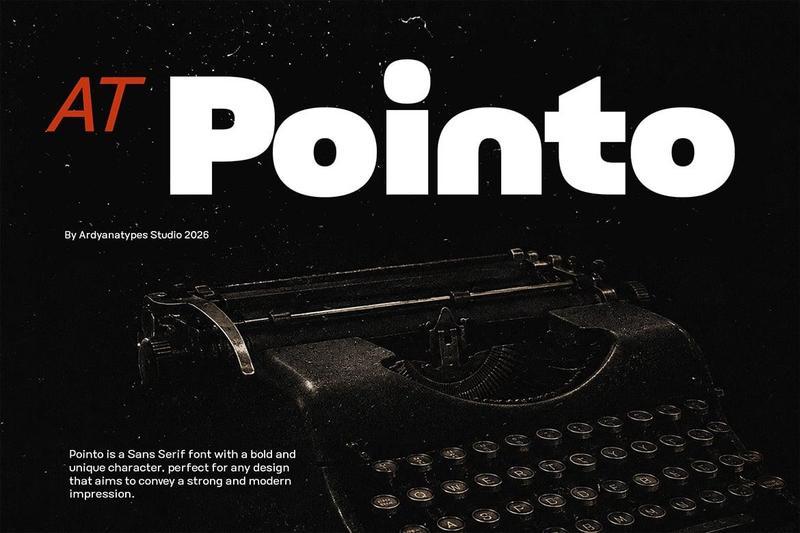
AT.Pointo is a bold and modern sans serif family designed to deliver strong visual impact with a clean, energetic, and contemporary character. Built on strong geometric foundations, dynamic italic styles, and balanced proportions, this typeface is crafted for designers seeking a powerful and versatile visual solution.
Available in a range of weights from Thin, Regular, to Black, complete with matching italic styles, AT.Pointo offers the flexibility to create everything from refined editorial layouts to attention-grabbing display typography. Its balanced construction ensures consistency across a wide variety of creative projects.
The italic styles are carefully developed to convey movement, energy, and confidence, making AT.Pointo particularly suitable for branding, technology, gaming, digital media, advertising, and visual communication projects. Each style is designed to maintain clarity while delivering a strong and distinctive personality.
With excellent readability across both print and digital environments, AT.Pointo combines modern aesthetics with functional performance, helping designers create impactful and memorable visual experiences.